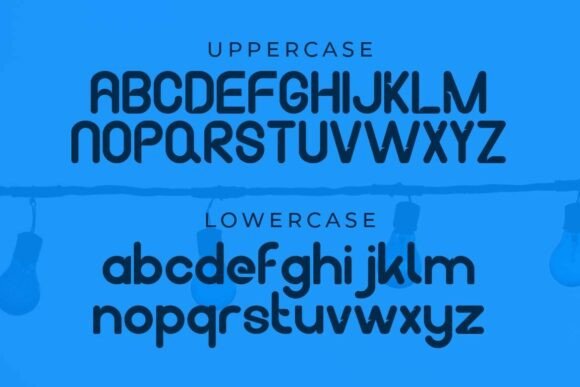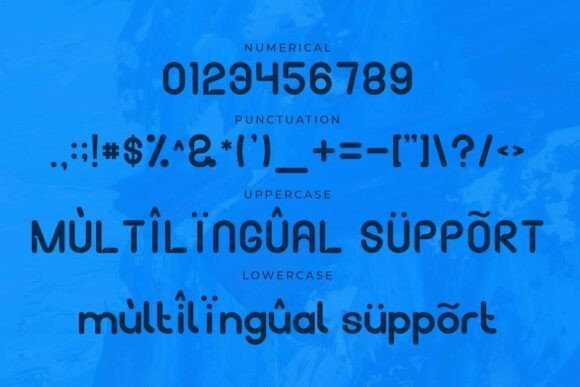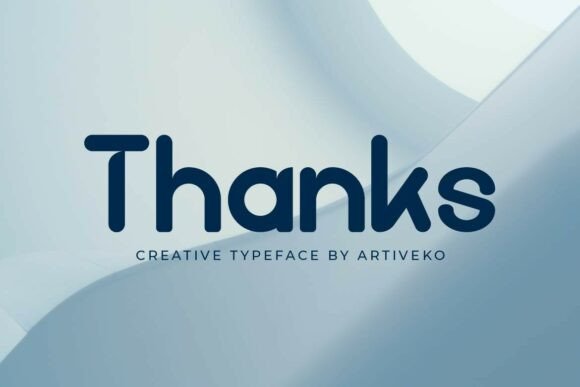
Introducing Gatau Font: The Friendly and Modern Sans Serif for Your Design Needs
In the world of typography, a font can make or break the visual identity of a brand, product, or creative project. With so many options available, it can be challenging to find the perfect font that conveys the right tone and style. That’s where Gatau Font comes in – a friendly and modern, rounded sans serif font designed to bring warmth and clarity to your typography.
The Characteristics of Gatau Font
Gatau Font boasts smooth curves, balanced proportions, and a soft geometric structure that makes it feel approachable yet clean. Its rounded sans serif design gives it a unique and distinctive look that’s both visually appealing and highly legible. Whether you’re working on branding, packaging, user interfaces, children’s content, or casual editorial design, Gatau Font is the perfect choice.
The Benefits of Using Gatau Font
So, what makes Gatau Font an excellent addition to your typography arsenal? Here are just a few benefits:
- Warmth and Clarity: Gatau Font’s rounded design and smooth curves bring a sense of warmth and approachability to your typography, making it perfect for brands and projects that want to convey a friendly and inviting tone.
- Versatility: With its clean and balanced design, Gatau Font is suitable for a wide range of applications, from digital interfaces to print materials.
- Legibility: The font’s clear and simple structure ensures that your text is easy to read, even at small sizes.
- Uniqueness: Gatau Font’s distinctive rounded sans serif design sets it apart from more traditional fonts, giving your brand or project a unique visual identity.
Who Can Benefit from Gatau Font?
Gatau Font is an excellent choice for a variety of designers and crafters, including:
- Branding and Identity Designers: Gatau Font’s friendly and approachable design makes it perfect for creating a strong brand identity that resonates with your target audience.
- Packaging Designers: The font’s clean and simple structure ensures that your packaging design is clear and easy to read, even on small labels and packaging.
- UI/UX Designers: Gatau Font’s legibility and simplicity make it an excellent choice for digital interfaces, ensuring that your users have a seamless and intuitive experience.
- Children’s Content Creators: The font’s playful and approachable design makes it perfect for children’s books, educational materials, and other kid-friendly content.
- Casual Editorial Designers: Gatau Font’s modern and clean design makes it suitable for casual editorial projects, such as blogs, magazines, and online publications.
How to Use Gatau Font Effectively
To get the most out of Gatau Font, here are a few tips:
- Pair it with Other Fonts: Gatau Font works well with a variety of other fonts, so don’t be afraid to experiment with different combinations to find the perfect pairing for your project.
- Experiment with Font Sizes: Gatau Font’s clear and simple structure ensures that it’s legible at a range of font sizes, so don’t be afraid to experiment with different sizes to find the perfect fit for your project.
- Use it Consistently: To create a strong visual identity, use Gatau Font consistently across your project or brand.
In conclusion, Gatau Font is a friendly and modern, rounded sans serif font that’s perfect for designers and crafters looking to add warmth and clarity to their typography. With its smooth curves, balanced proportions, and soft geometric structure, Gatau Font is an excellent choice for a wide range of applications, from branding and packaging to user interfaces and children’s content. So why not give Gatau Font a try and see how it can elevate your typography to the next level?